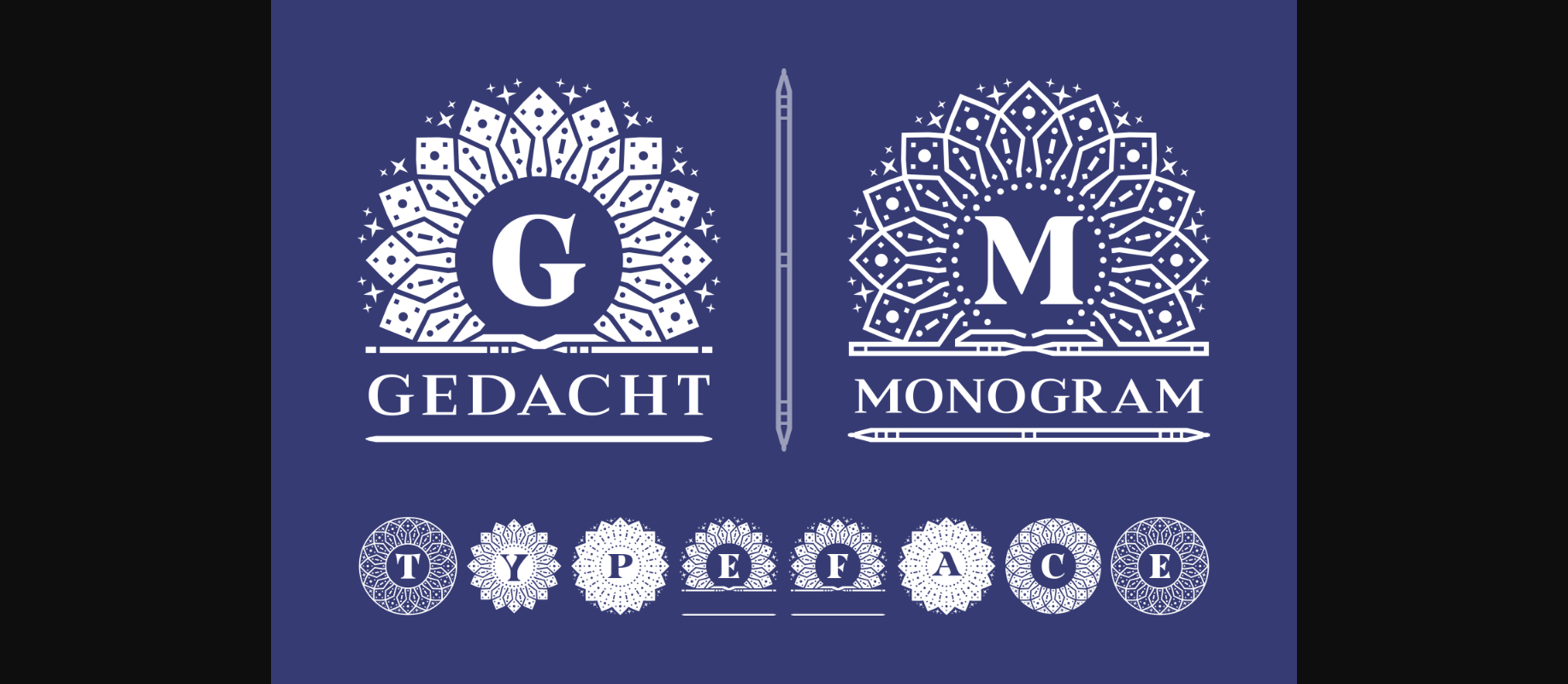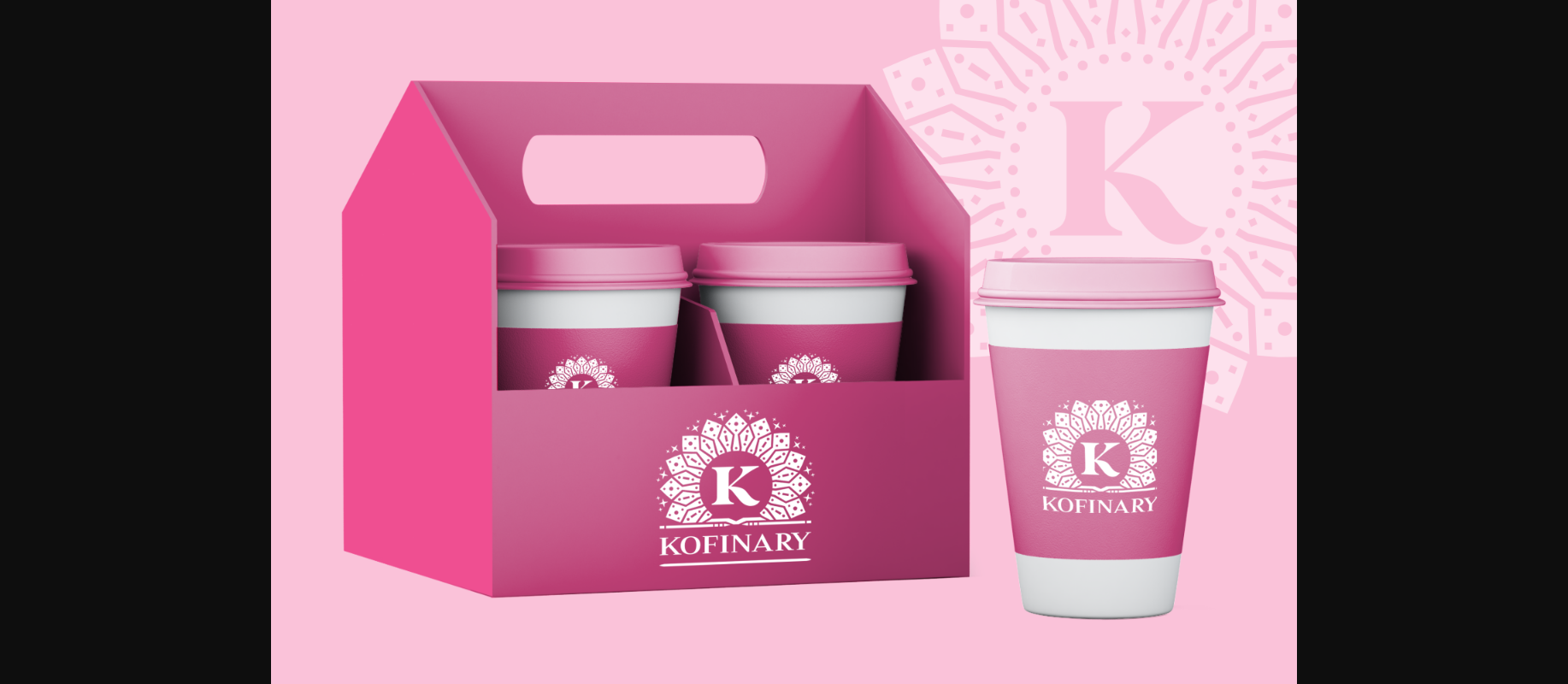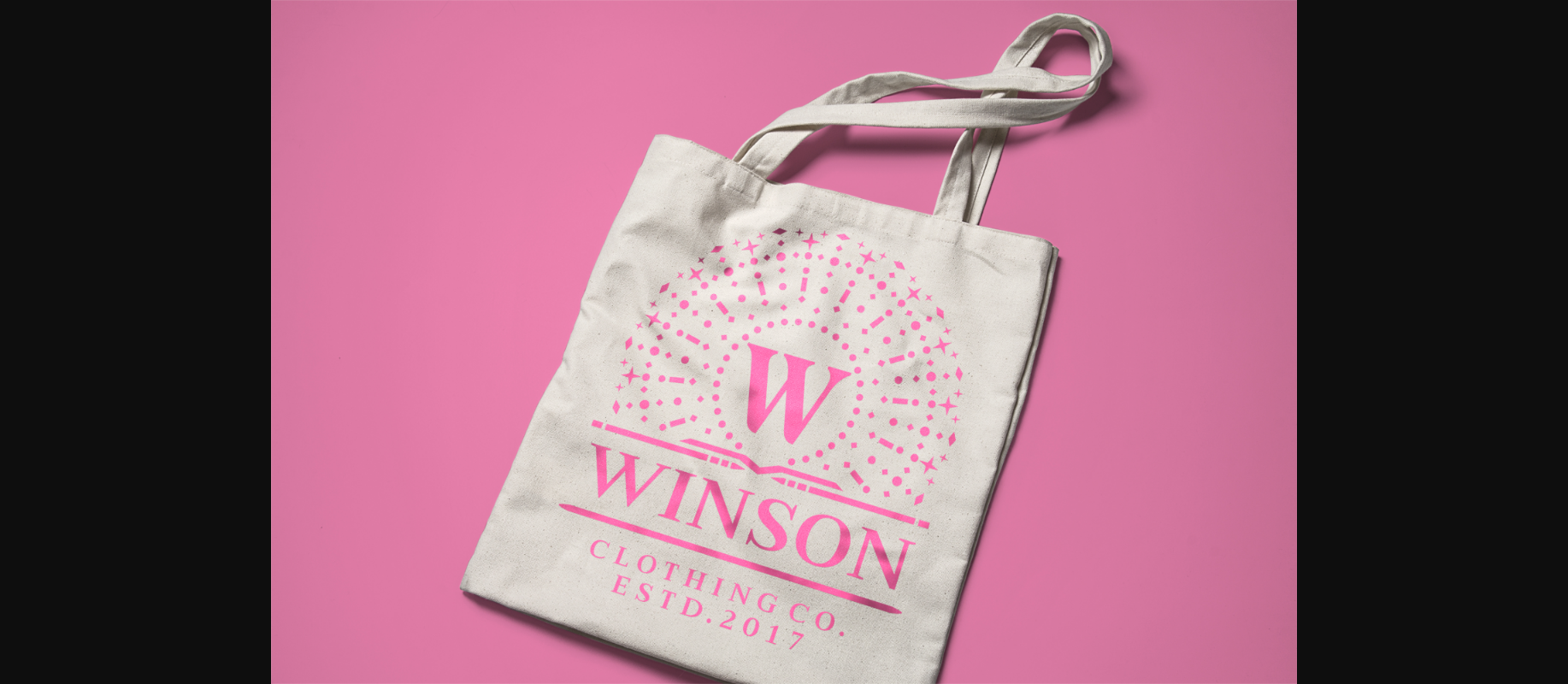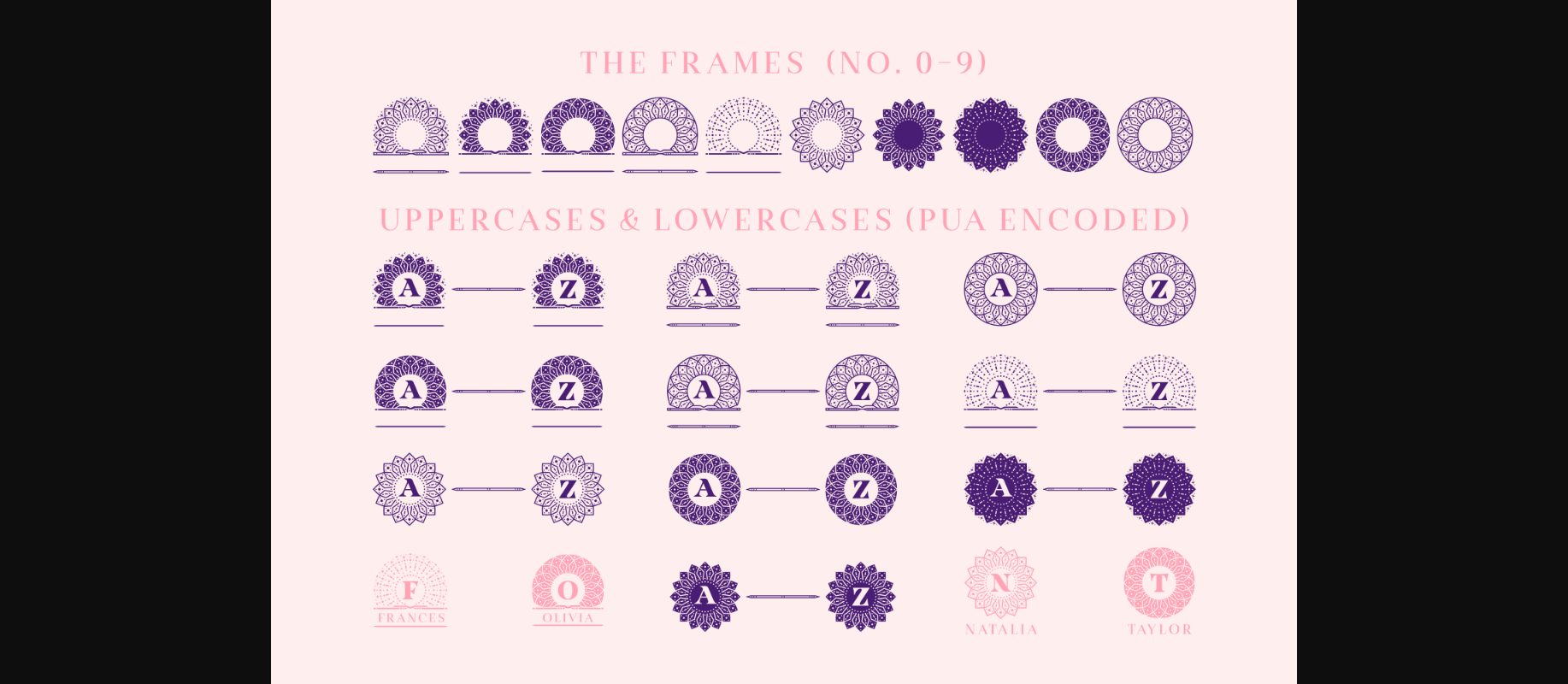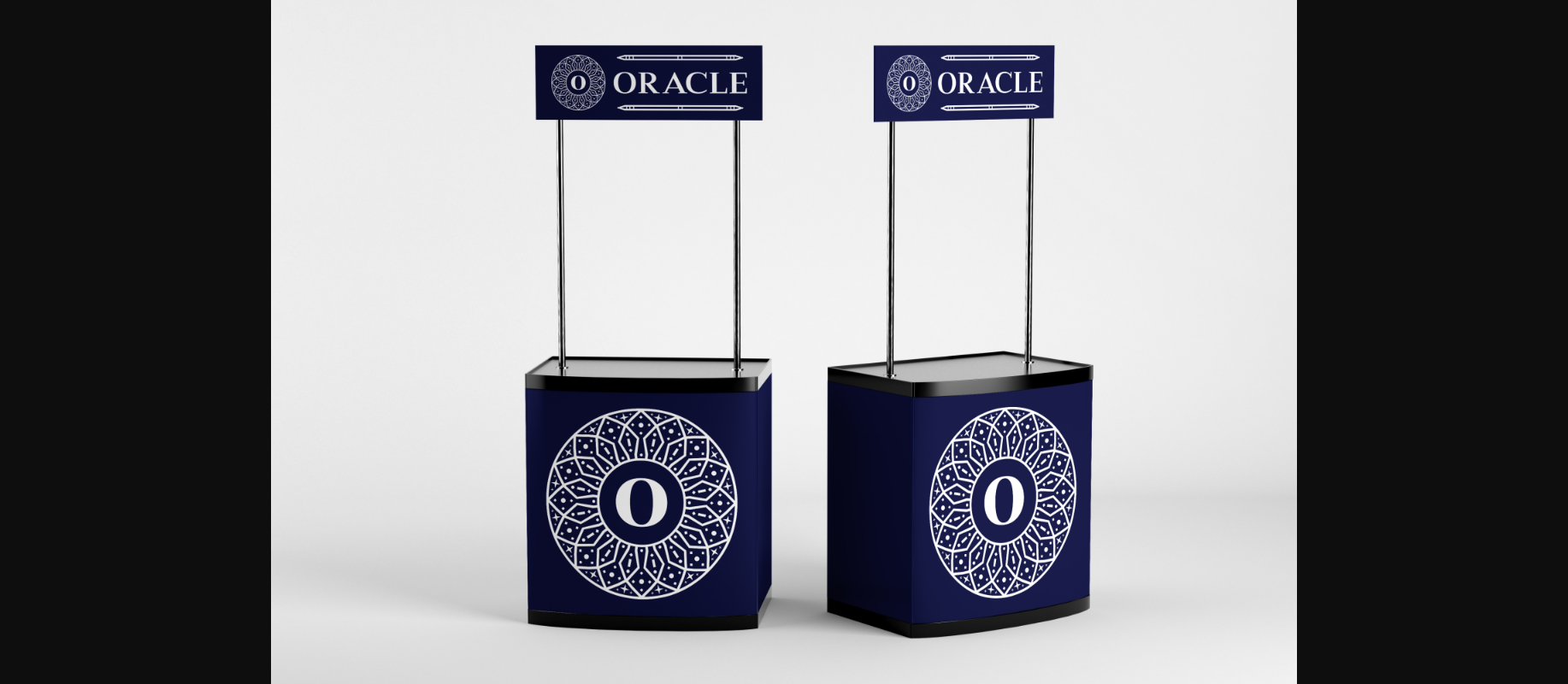
Gedacht Monogram Font
About Gedacht Monogram Font
Gedacht Monogram is a unique decorative font with a beautiful mandala theme. Use it for any design projects that require a charming appearance!